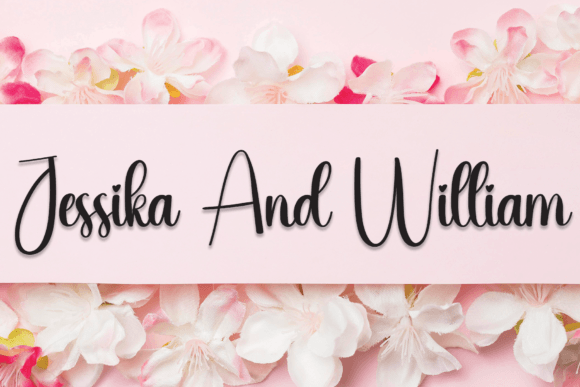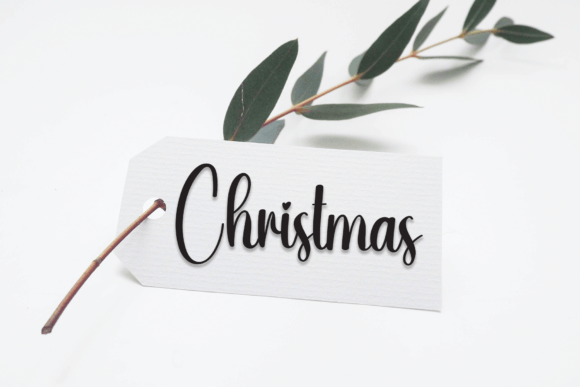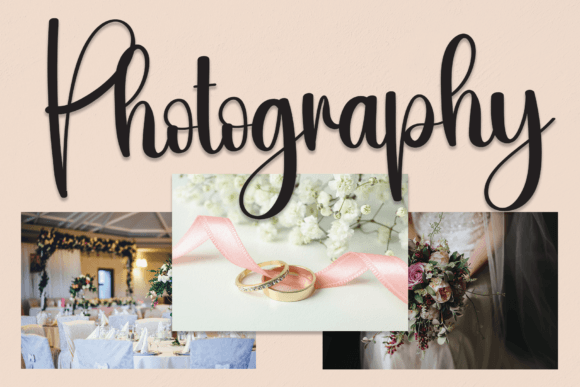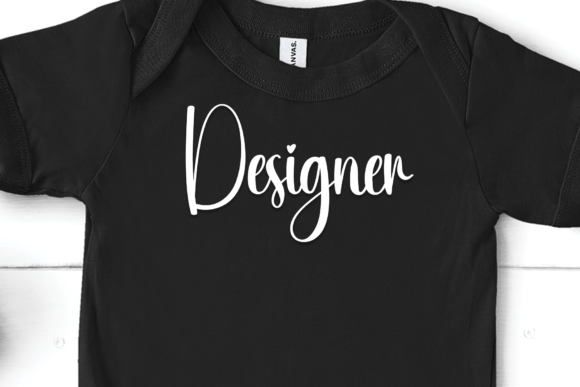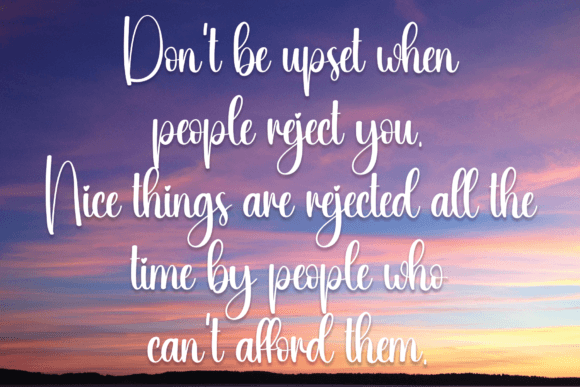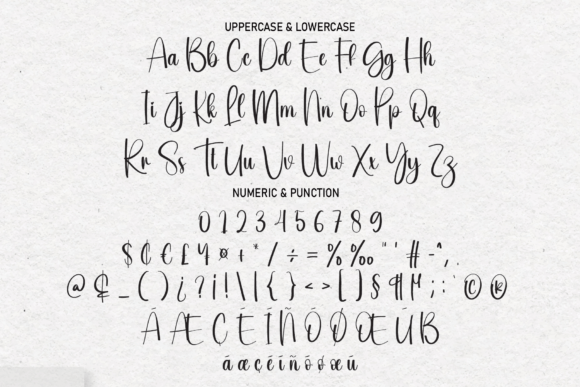
The Blessed Font: A Designer’s New Best Friend
I’ll never forget the time I was working on a wedding invitation project, and my client asked for a font that was both elegant and playful. I scoured the internet, tried out dozens of fonts, but nothing seemed quite right. That was until I stumbled upon the Blessed Font. Its unique blend of cursive and print letters immediately caught my eye, and I knew I had found the perfect fit. In this article, I’ll share my experience with the Blessed Font, its features, and how to make the most of it in your designs.
- ✨ The Blessed Font’s latest style letters are perfect for a wide range of projects, from wall displays to social media post logos.
- ✅ Its unique handwriting style adds a touch of personality to any design.
- 💕 The font’s versatility makes it suitable for both digital and print projects.
- 🎉 It’s perfect for creating eye-catching titles, headings, and emphasis text.
While the Blessed Font is an excellent choice for many projects, there are a few things to keep in mind:
- ⚠️ The font’s cursive elements can be a bit tricky to use in certain contexts, such as body text or long paragraphs.
- 🤔 Some users may find the font’s stylistic alternates a bit overwhelming, especially if they’re new to using OpenType features.
The Blessed Font was inspired by the art of handwriting and the beauty of cursive script. Its designer wanted to create a font that was both elegant and playful, with a unique personality that would stand out in any design. The font’s stylistic alternates and OpenType features were designed to give users maximum flexibility and creativity.
Q: What is the Blessed Font suitable for?
A: The Blessed Font is perfect for a wide range of projects, including wall displays, wedding invitations, social media post logos, advertisements, product packaging, product designs, labels, photography, watermarks, invitations, stationery, and any project that requires a taste for handwriting.
Q: Is the Blessed Font easy to read?
A: The Blessed Font is designed to be elegant and visually appealing, but it may not be the best choice for long blocks of text. It’s best used for titles, headings, and emphasis text.